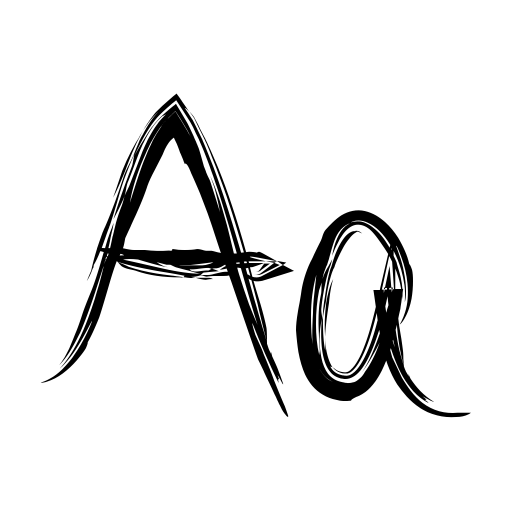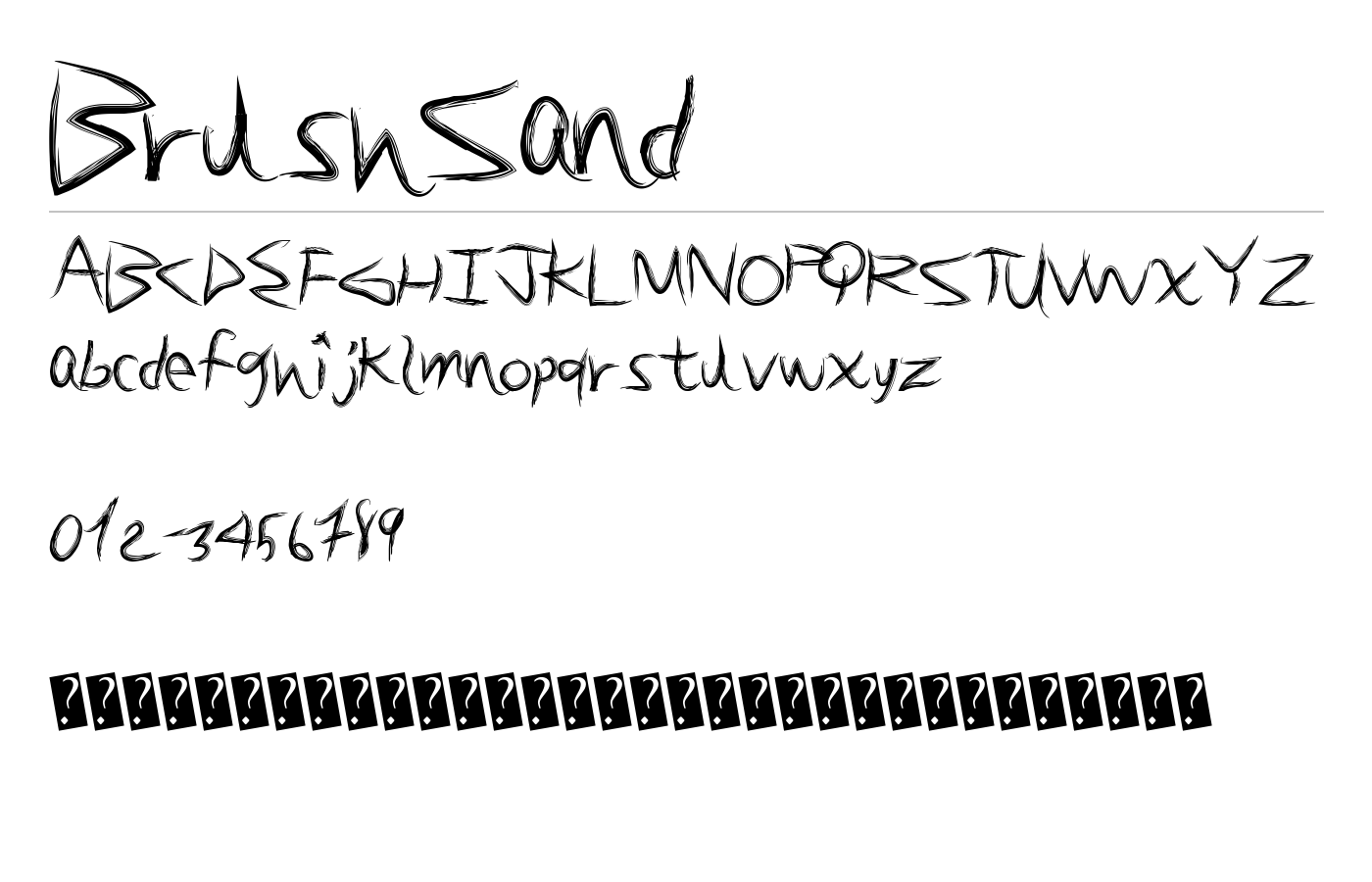
BrushSand is a dynamic handwritten script font that mimics rough, expressive brush strokes with a jagged, textured appearance. Its irregular, lively letterforms create an artistic, informal vibe perfect for creative designs, making it ideal for logos, posters, and projects seeking a bold, edgy, and personal touch. This font stands out where uniqueness and energetic style are needed rather than traditional readability.
BrushSand Font
About BrushSand Font
| Font family | BrushSand Font |
| Designer | Max Infeld |